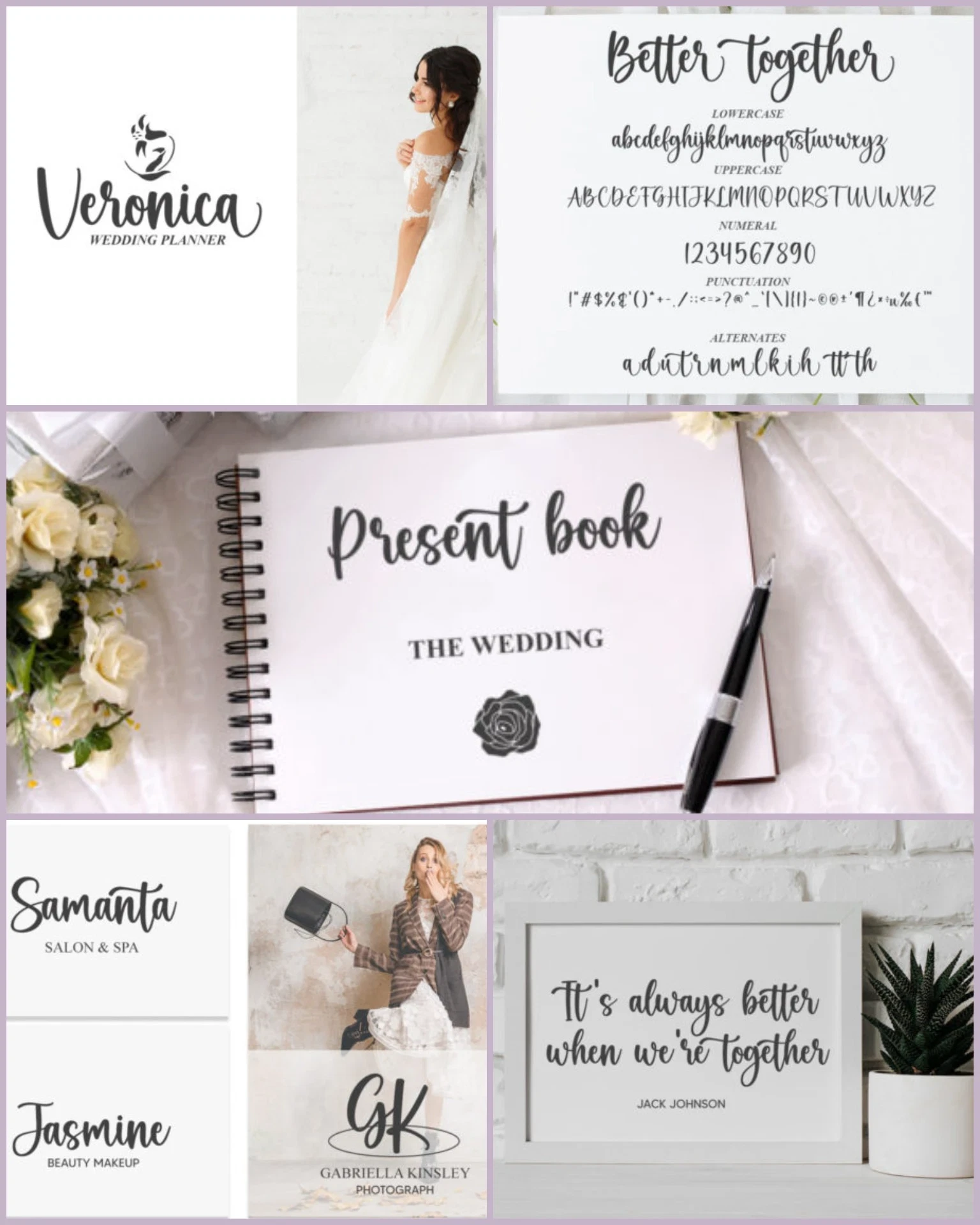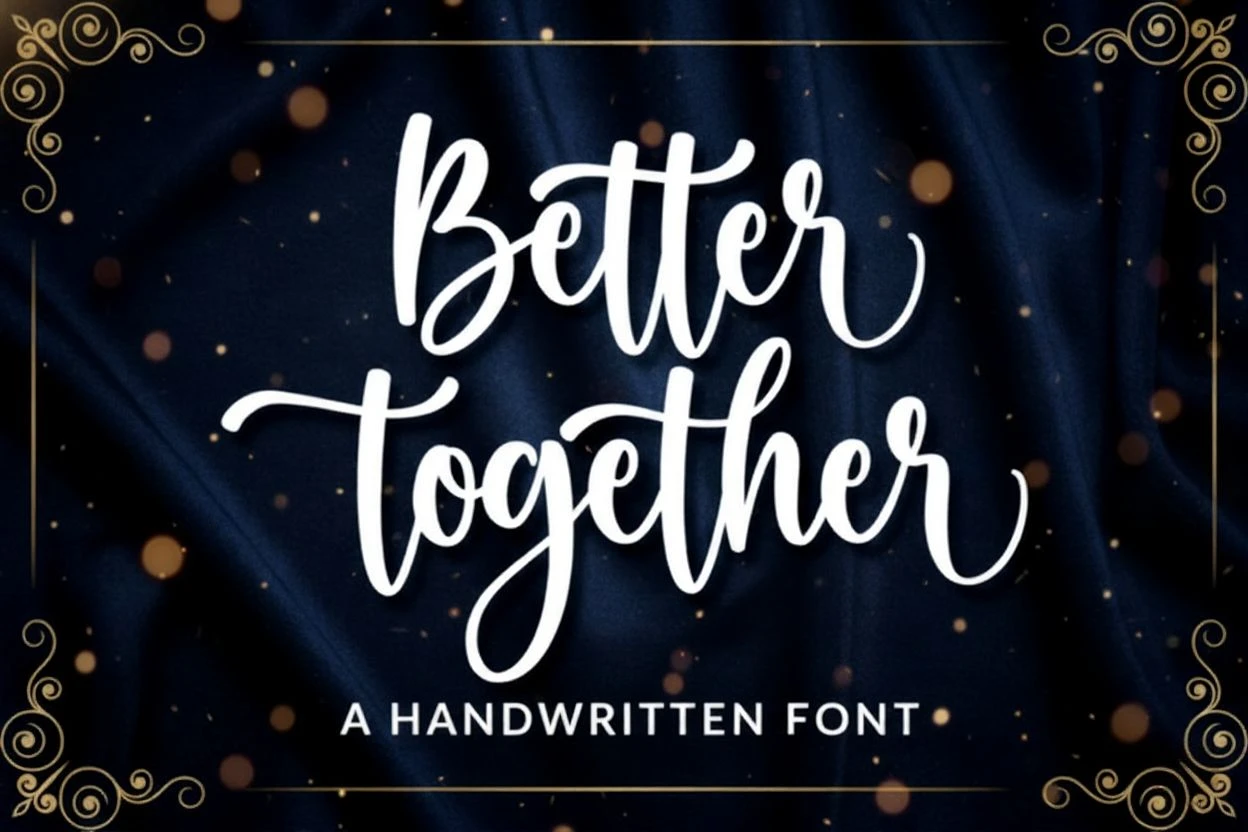
Better Together Font — Romantic Handwritten Elegance
Better Together is one of those handwritten fonts that instantly feels soft and personal without trying too hard. The lettering has a relaxed flow to it — slightly imperfect in the best way — which gives designs a more genuine handwritten look instead of that overly polished script style you see everywhere lately.
What stood out to me first was how naturally the letters connect. Some romantic script fonts can get difficult to read once you start using them in real projects, especially for invitations or social graphics, but Better Together stays surprisingly clean even at smaller sizes.
It works especially well for:
- Wedding invitations
- Branding for beauty or lifestyle businesses
- Romantic quote graphics
- Signature logos
- Valentine’s Day designs
- Packaging with a soft feminine feel
The curves are smooth, the spacing feels balanced, and the overall style leans elegant without becoming too formal. I could easily see this font being used on bridal stationery or boutique candle packaging where you want something warm and stylish but still approachable.